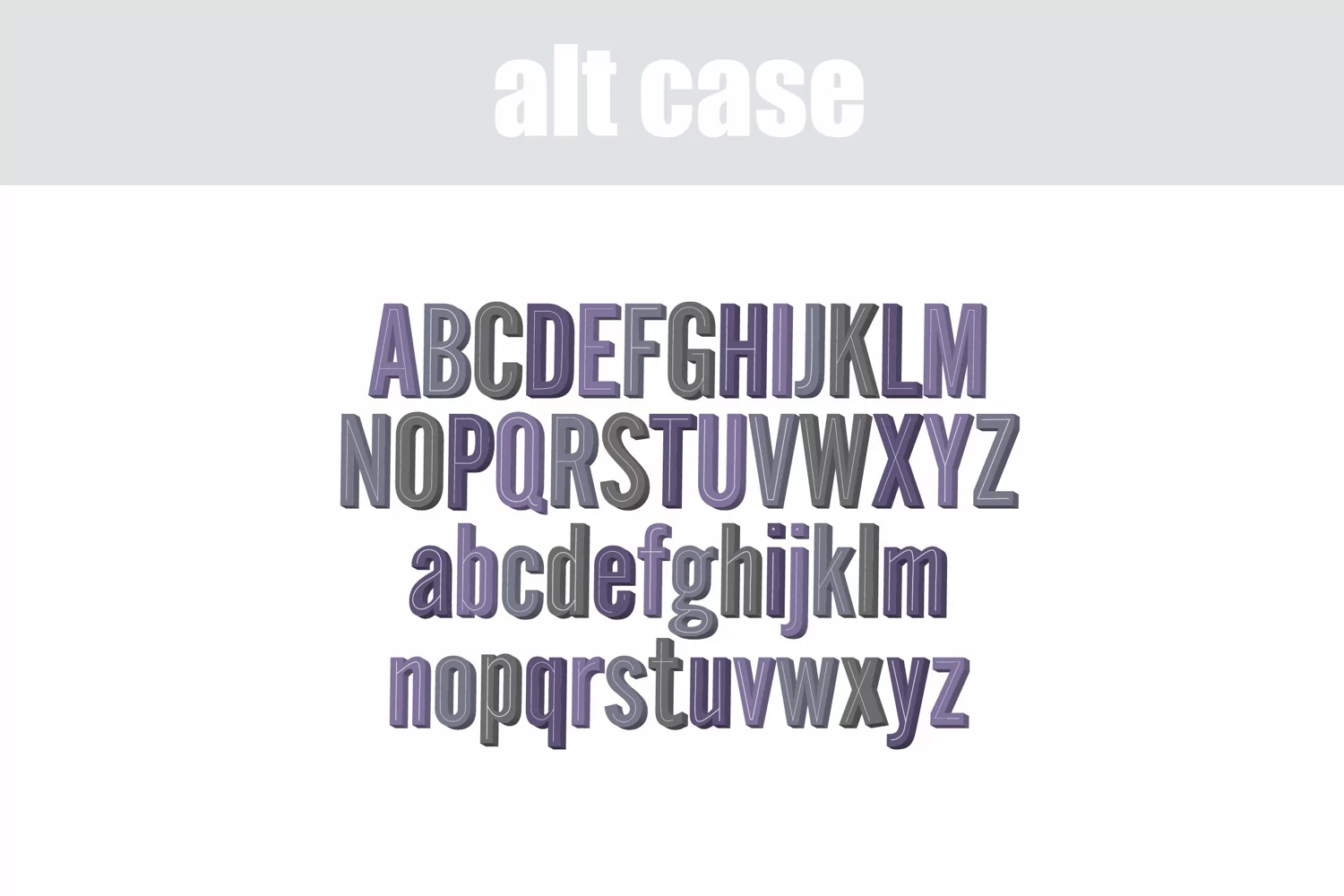
Halloween Spiders
This full-color font features a Halloween color palette on a sans serif with an inline and a number of spiders throughout. There is an alt case w/ additional colors you can access through your system or Silhouette's glyph map.